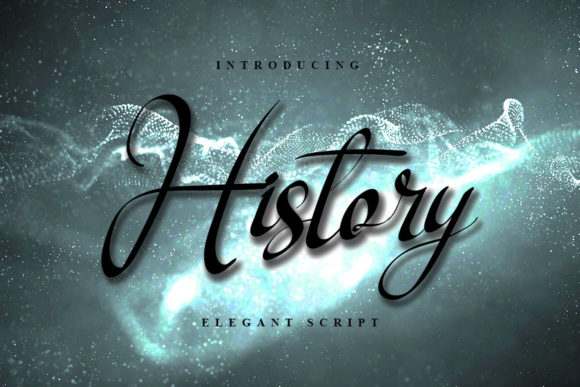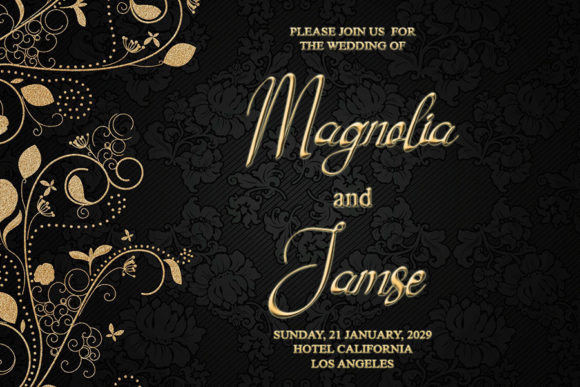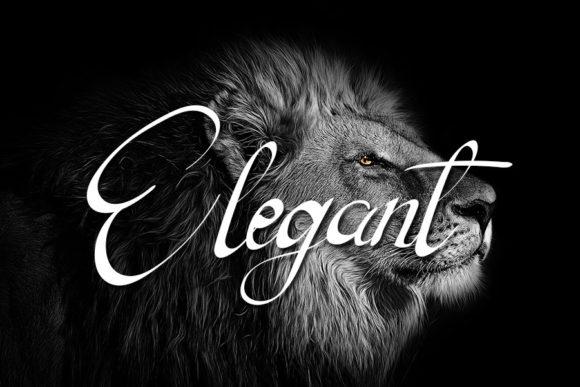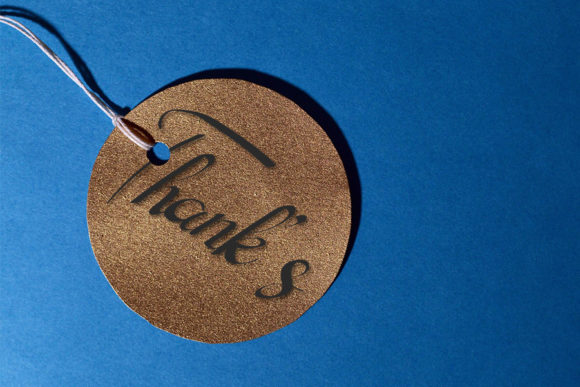
History Font
About History Font
History is a dainty and cursive script font. Add this romantic and lovely looking font to each of your love letters, wedding invitations or favorite design ideas, and you will be astounded by the outcome.